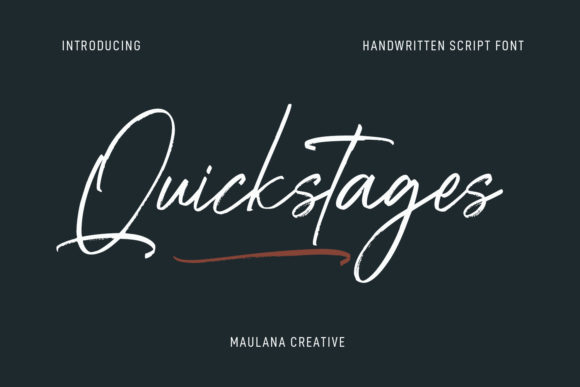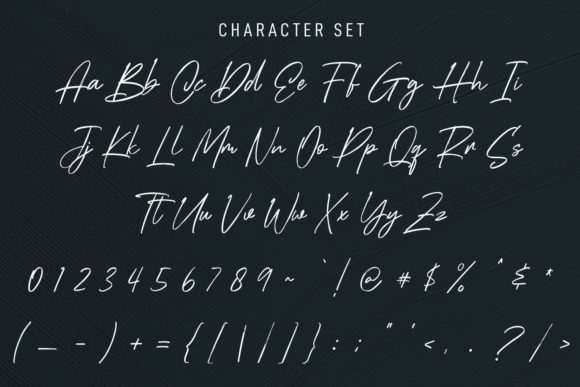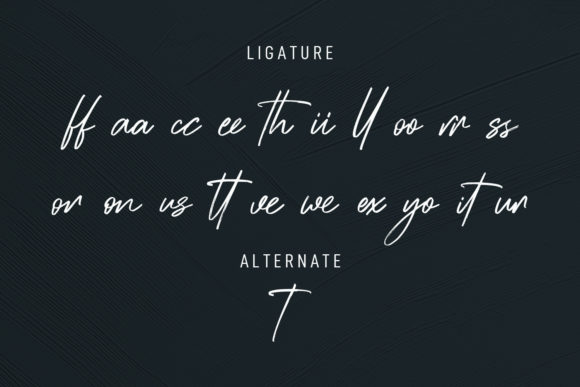
About Quickstages Font
“Quickstages” is a dynamic and expressive brush script font that captures attention. Characterized by its bold contrast strokes, playful characters, ligatures, alternates, and extra swashes, this font offers a range of design elements to elevate your creative projects.
The font’s brush script style brings a sense of energy and liveliness to your designs. Its bold contrast strokes add visual impact, while the playful characters, ligatures, and alternates provide versatility and creative possibilities. The extra swashes further enhance the font’s expressive nature, giving your work an added touch of flair.
With its diverse features, “Quickstages” is an excellent choice for a variety of design projects. Whether you’re working on branding, posters, social media graphics, or any other creative endeavor, this font can inject a sense of dynamism and uniqueness into your designs.
In summary, “Quickstages” goes beyond being just a font—it’s a creative asset that enhances your ideas with its expressive brush script style. Its bold strokes, playful characters, and additional design elements make it a valuable tool for designers aiming to add a dynamic and impactful touch to their creative work.